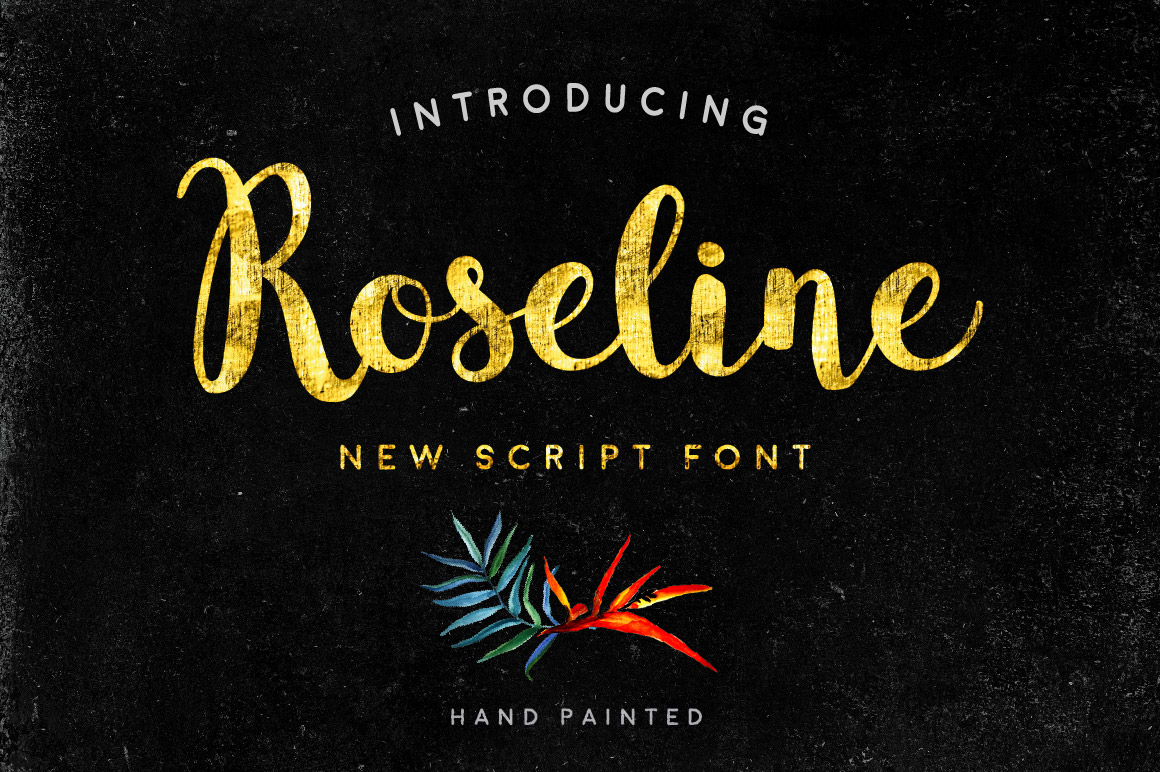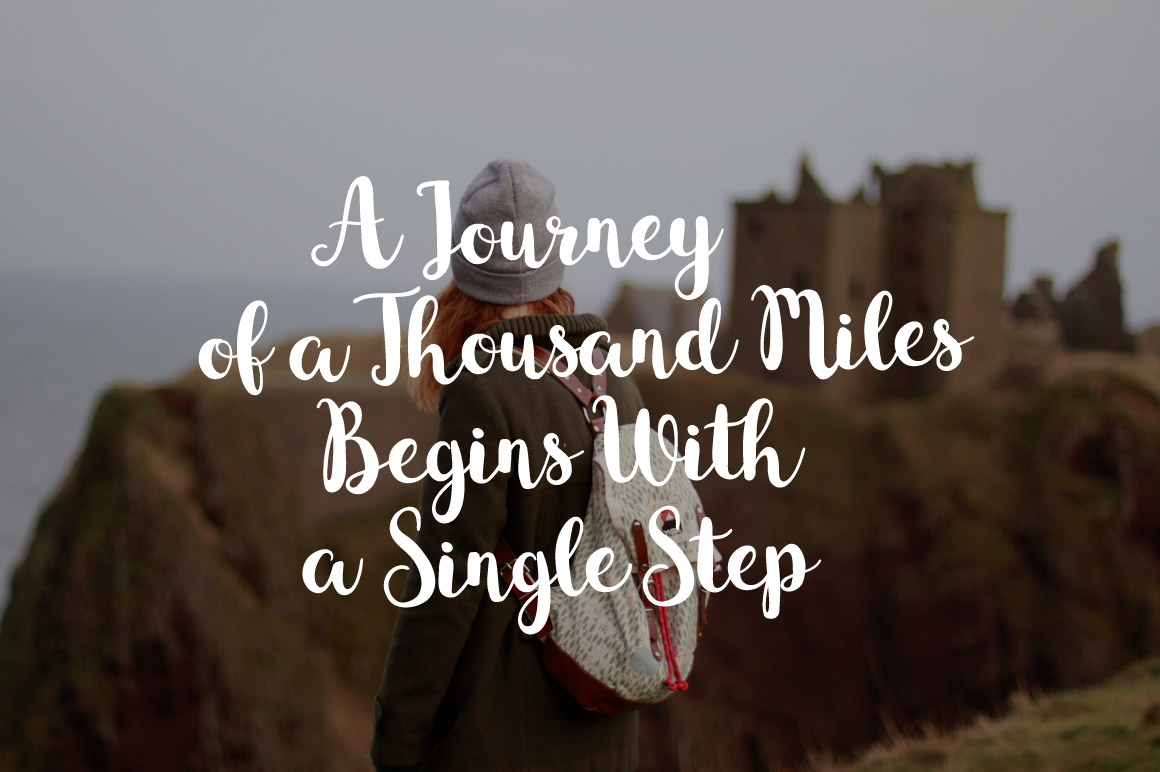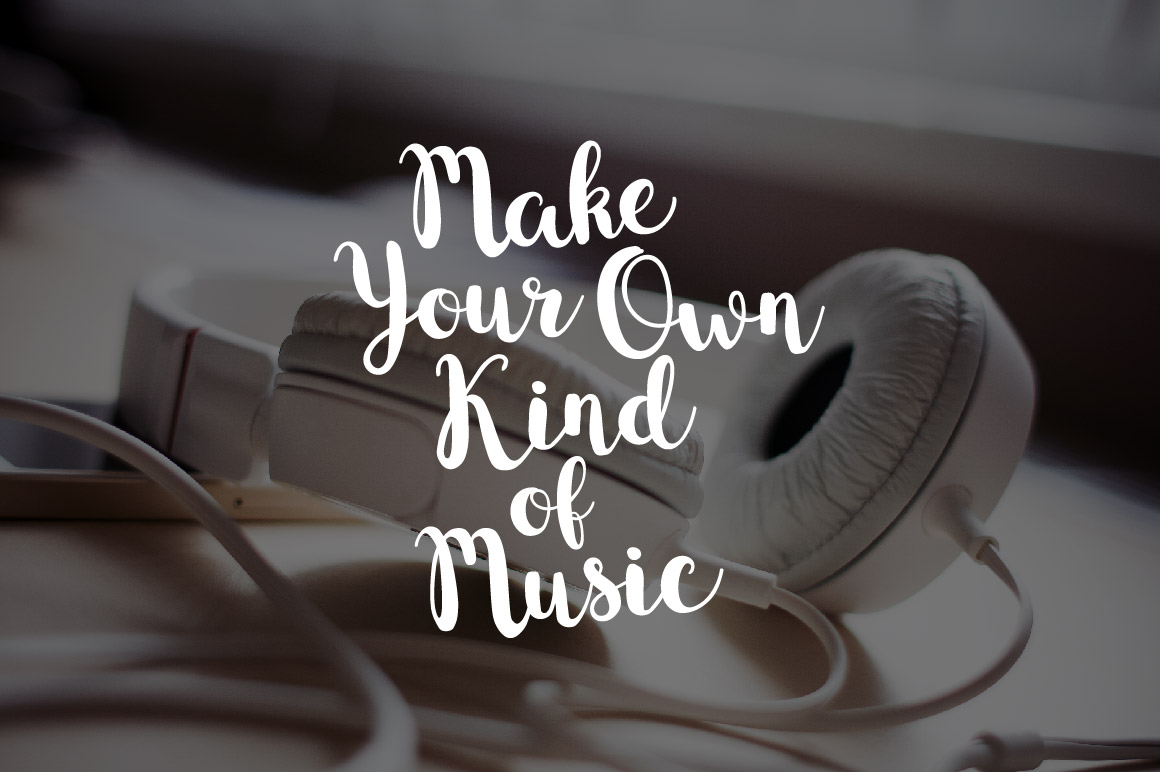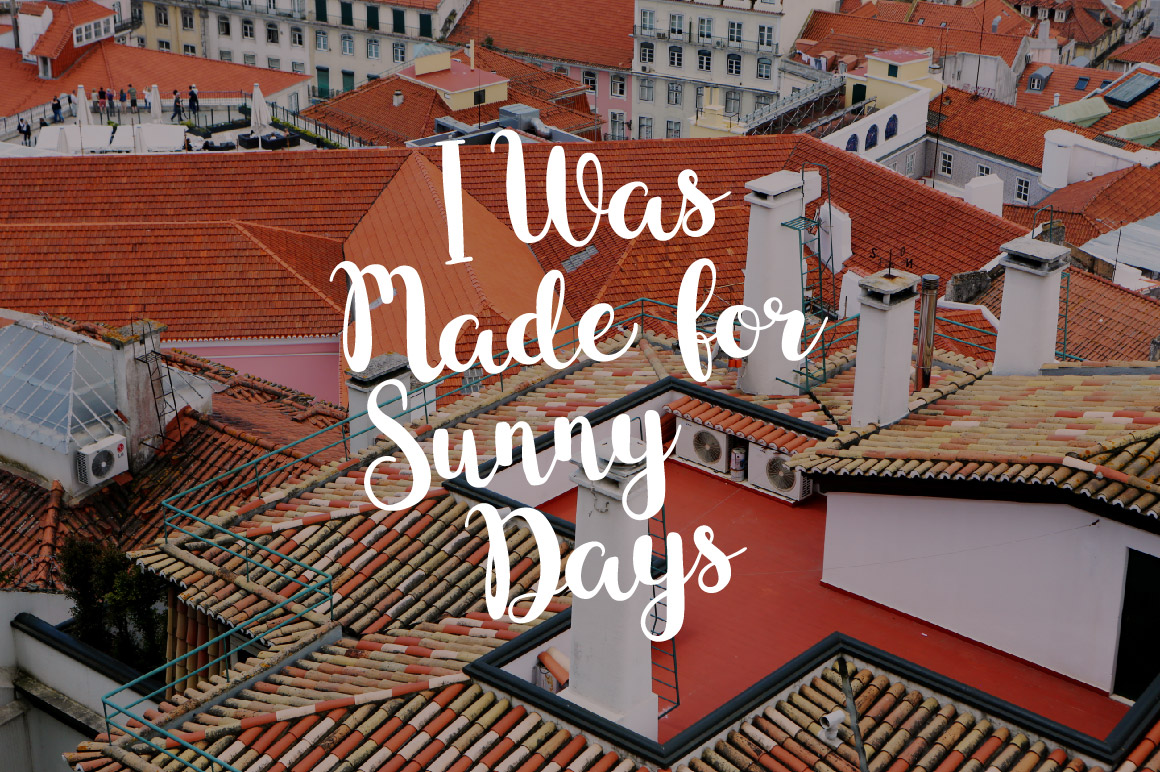
Roseline Font
Roseline is a new calligraphy script font. It is great for invitations, greeting cards, branding materials, quotes, posters, and more. Roseline comes with upper and lowercase characters, punctuation, numerals and ligatures.